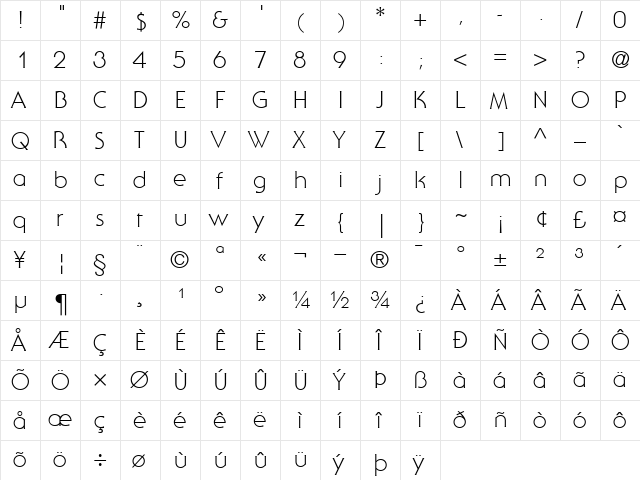
ITCSerifGothic-Light Light Font Preview
ITCSerifGothic-Light Light
Design Context for ITCSerifGothic-Light Typeface
ITCSerifGothic-Light brings classic typographic sensibility to the table — its serifs and measured letterforms reflect centuries of print heritage. Its slender proportions lend an understated elegance to any composition.
Pro Tip: Use ITCSerifGothic-Light with generous line-spacing for the most refined reading experience — its light weight benefits from room between lines.